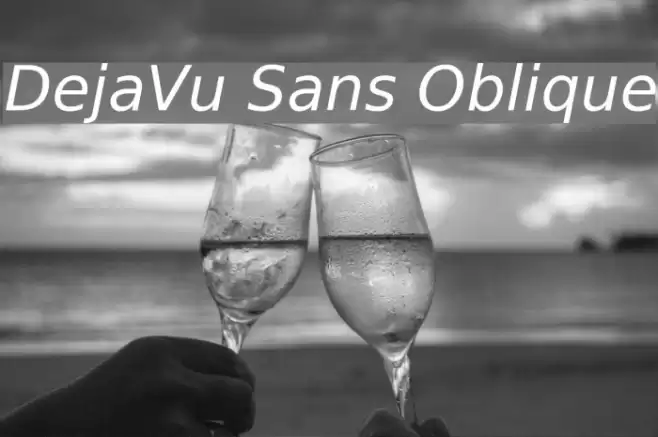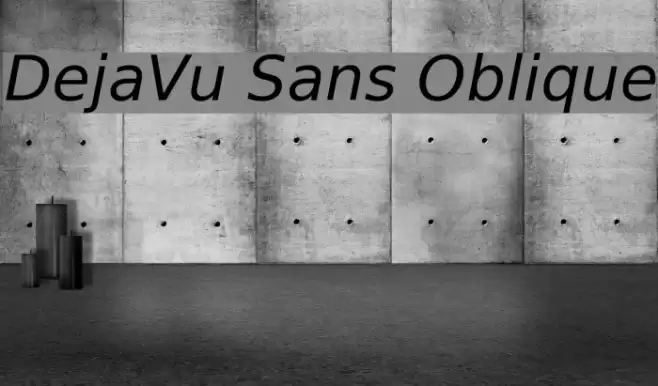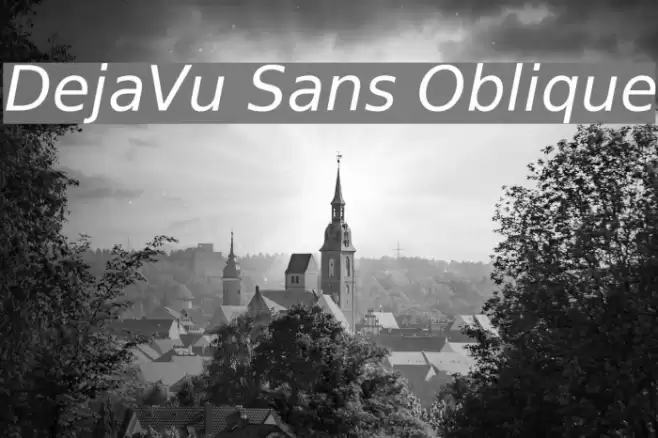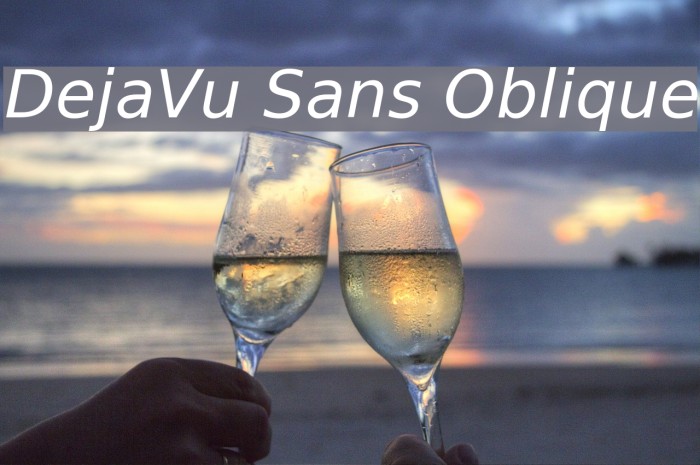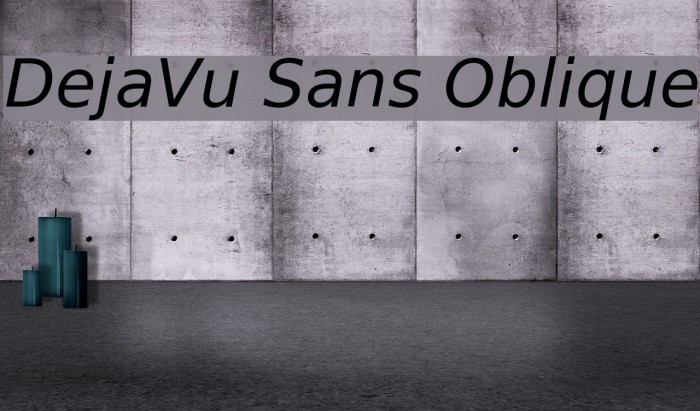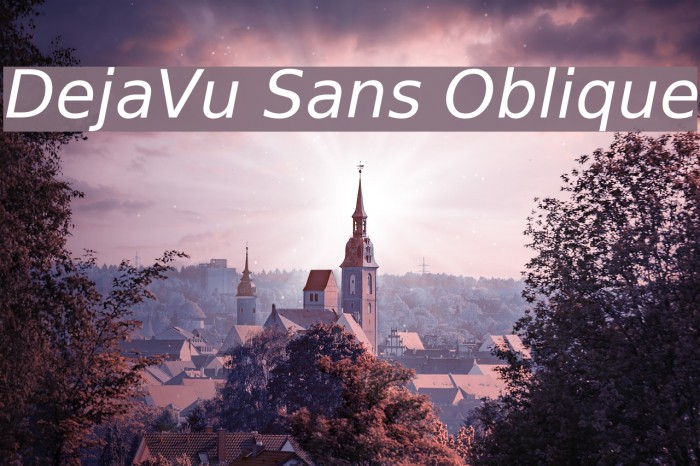
DejaVu Sans Oblique Font
DejaVu Sans Oblique Description
This font presents a clean and modern sans-serif style with an oblique slant, giving it a dynamic and forward-leaning appearance. The characters are well-proportioned, maintaining a consistent stroke width that contributes to its legibility. The uppercase and lowercase letters are distinct, with a slight curvature that adds a touch of elegance. The numerals are straightforward and align well with the overall design, ensuring clarity in numerical data presentation. Special characters are designed to blend seamlessly with the alphabet, maintaining the font's cohesive look. This font's oblique nature makes it suitable for applications where a sense of motion or emphasis is desired.
A modern sans-serif font with an oblique slant, offering clarity and elegance from Uncategorized fonts.
- Proposed Projects: Ideal for use in digital interfaces, branding materials, and editorial design where a modern and dynamic feel is required.